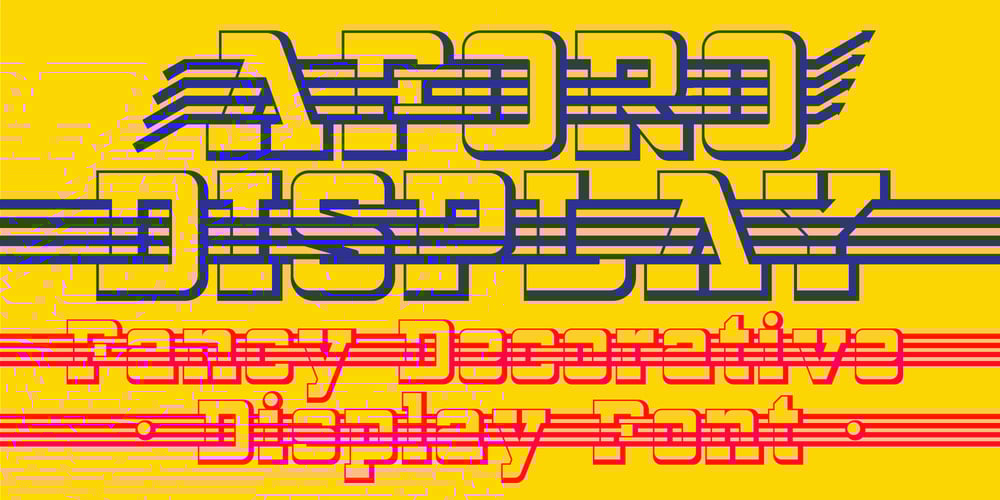
Aforo Display
Aforo Display font
Aforo Display Font Family was designed by Daniel Ramirez and published by DarezD. Aforo Display contains 1 styles and family package options. Aforo Display is a decorative font suitable for logos, headlines, packaging, signs, posters, postcards, labels, publishing, page design…The basis of the construction of the Aforo Display typeface is a slab serif font intertwined in four horizontal bars similar to the marquee letters of the old cinema/theatres. Hence its name: Aforo in Spanish is the capacity of spectators of a theater. The horizontal bars partially penetrate each character giving a sense of depth and the right and lower strokes are widened to simulate volume. It comes with four special characters to add start and end arrows, two versions for each element.